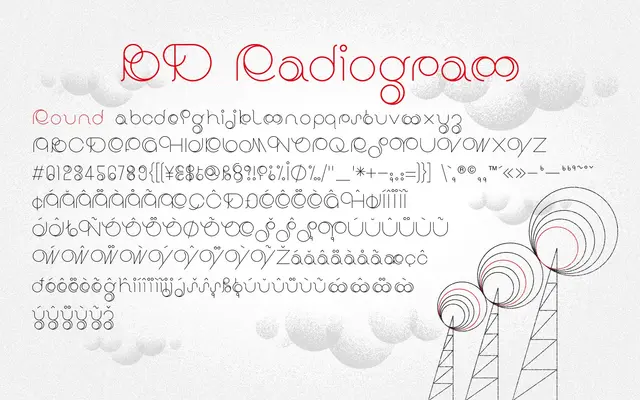
BD Radiogram
Type Different · 2007
A thin-line display typeface from 2007 offered in two styles: a curved Round cut and a tighter Narrow cut.
Both styles share a delicate, curvy construction built on consistently thin strokes, giving the family an elegant, almost art-deco inflection. The Round cut favours soft, open forms while the Narrow cut tightens the proportions for headlines and logotype work at closer measures. Latin Extended coverage is included, broadening its usefulness across Western European languages.
A decorative thin-line typeface with curvy letterforms in Round and Narrow styles, placing it firmly in the display category with no practical body-text application.